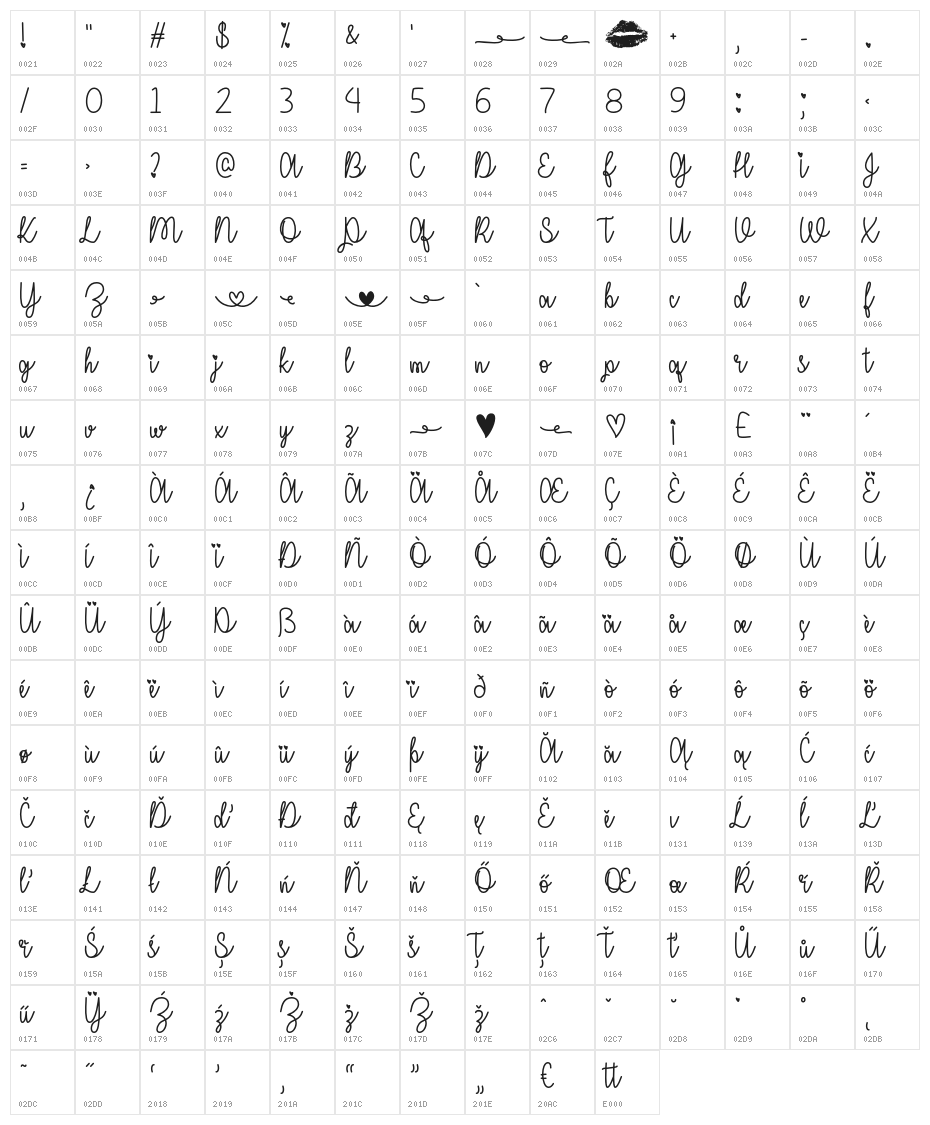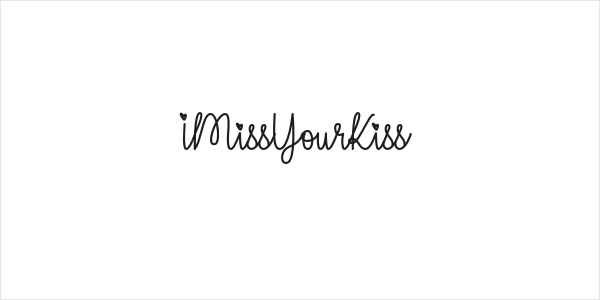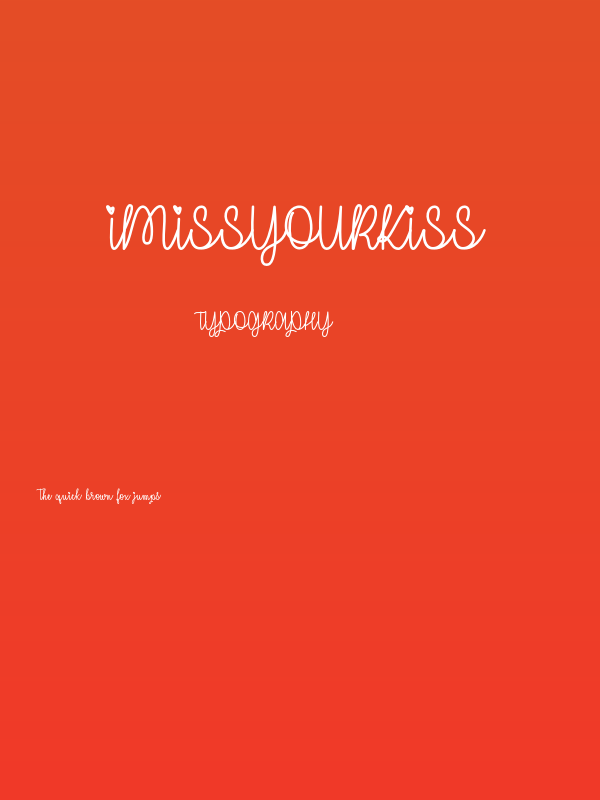
IMissYourKiss Font
IMissYourKiss Description
This font features a playful and whimsical script style, characterized by its flowing, cursive letters that mimic a handwritten note. The uppercase and lowercase letters are connected, adding a sense of continuity and fluidity. The font includes charming details like heart-shaped dots over the 'i' and 'j', enhancing its romantic and personal feel. The numbers and special characters maintain the same playful aesthetic, making it suitable for creative and informal projects. The strokes are consistent in width, providing a balanced and harmonious appearance.
| Proposed Projects | Ideal for wedding invitations, greeting cards, personal branding, and romantic-themed designs. |